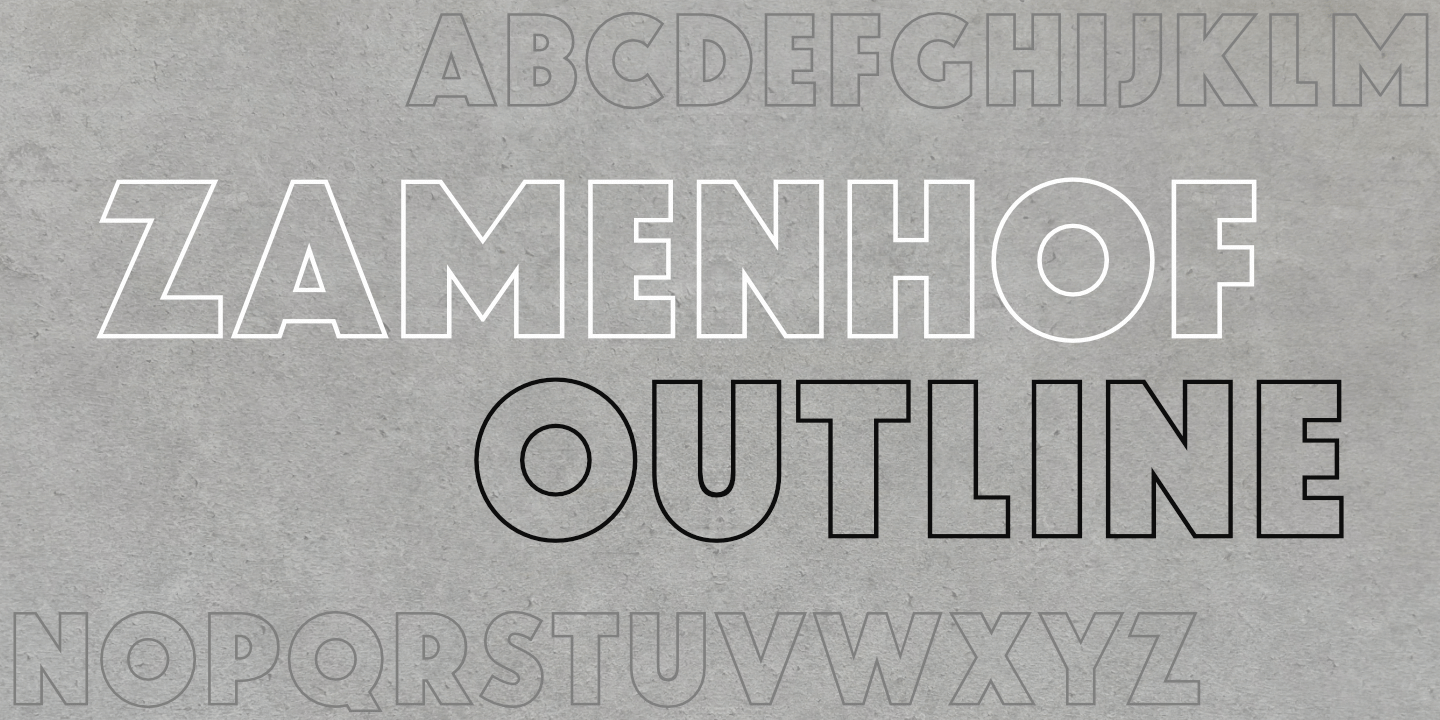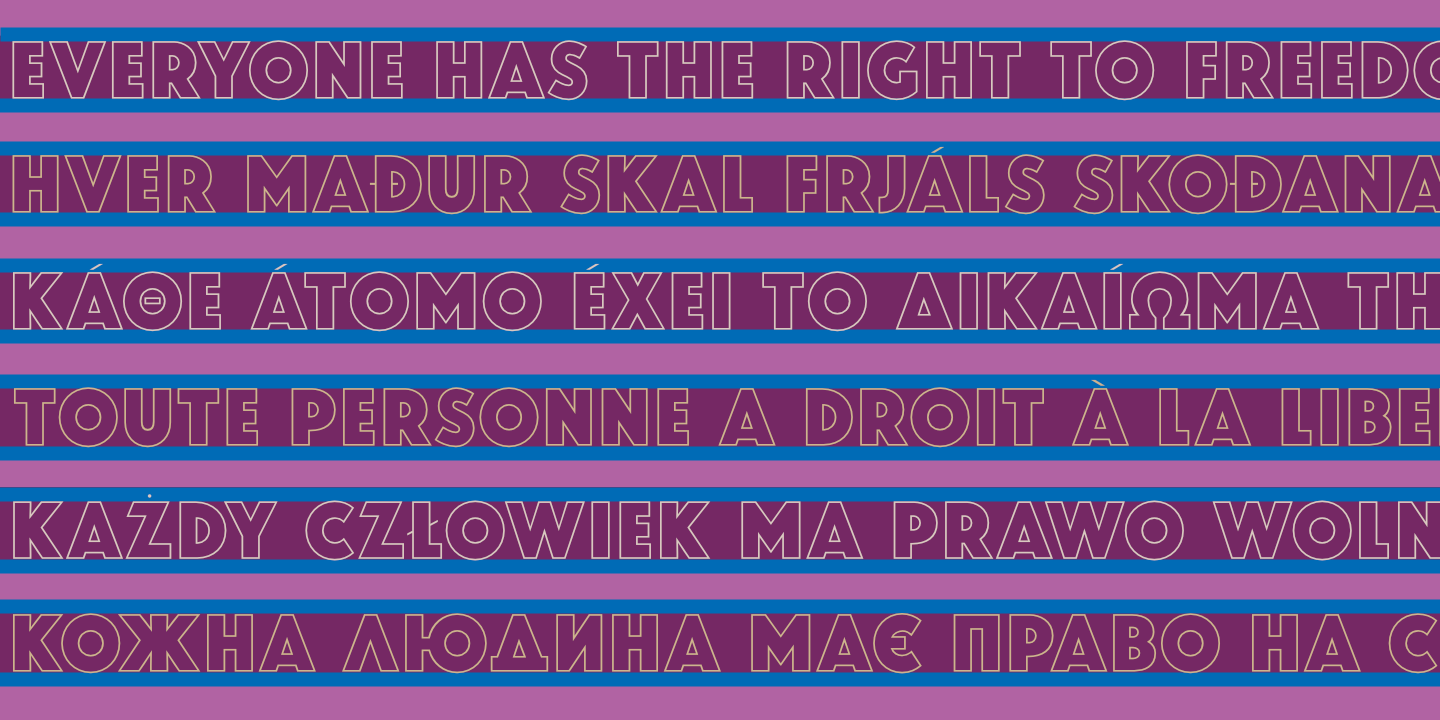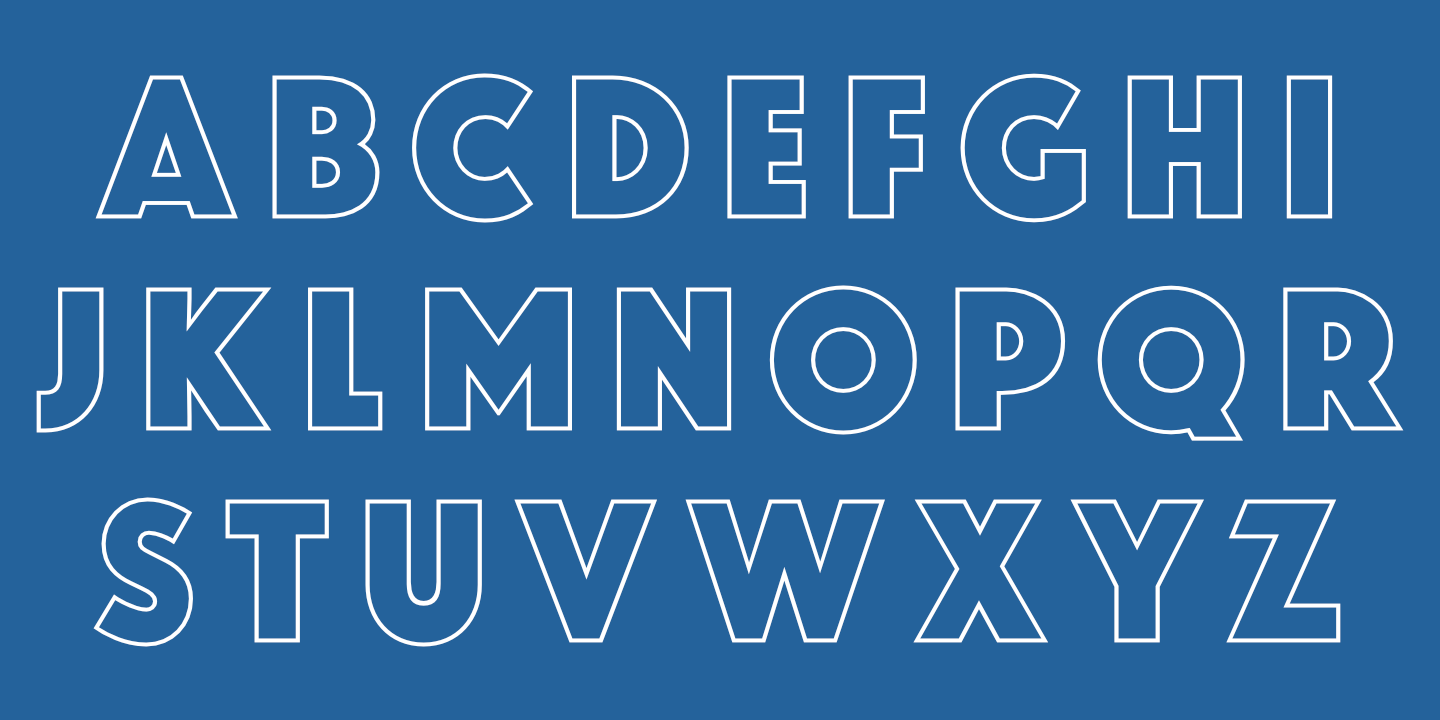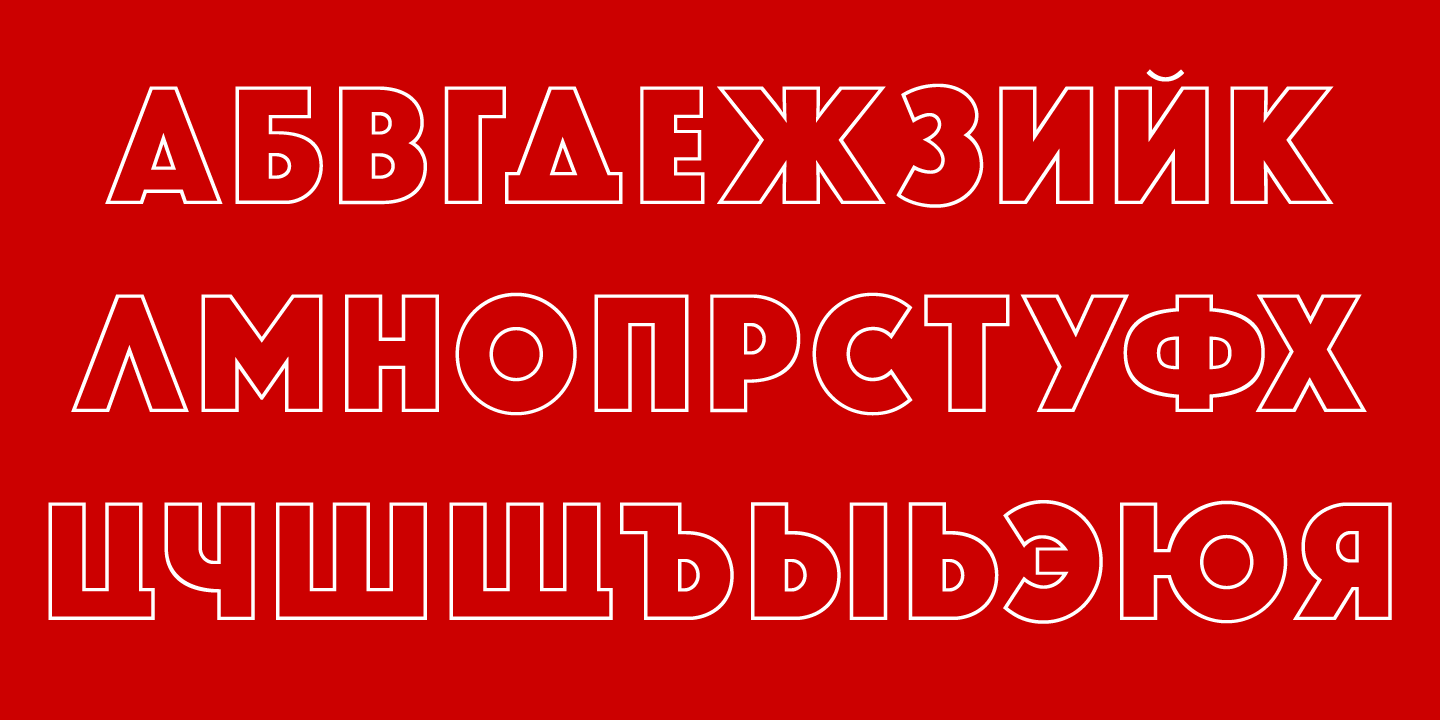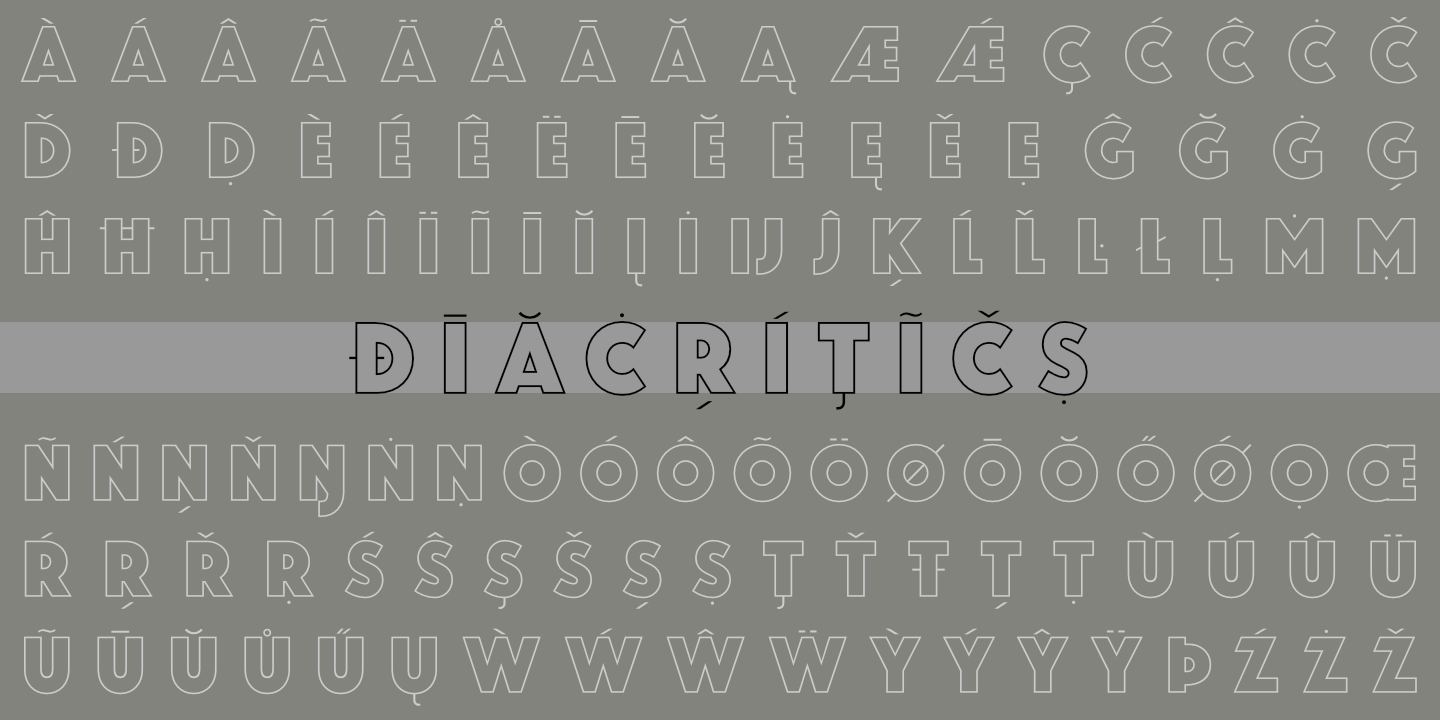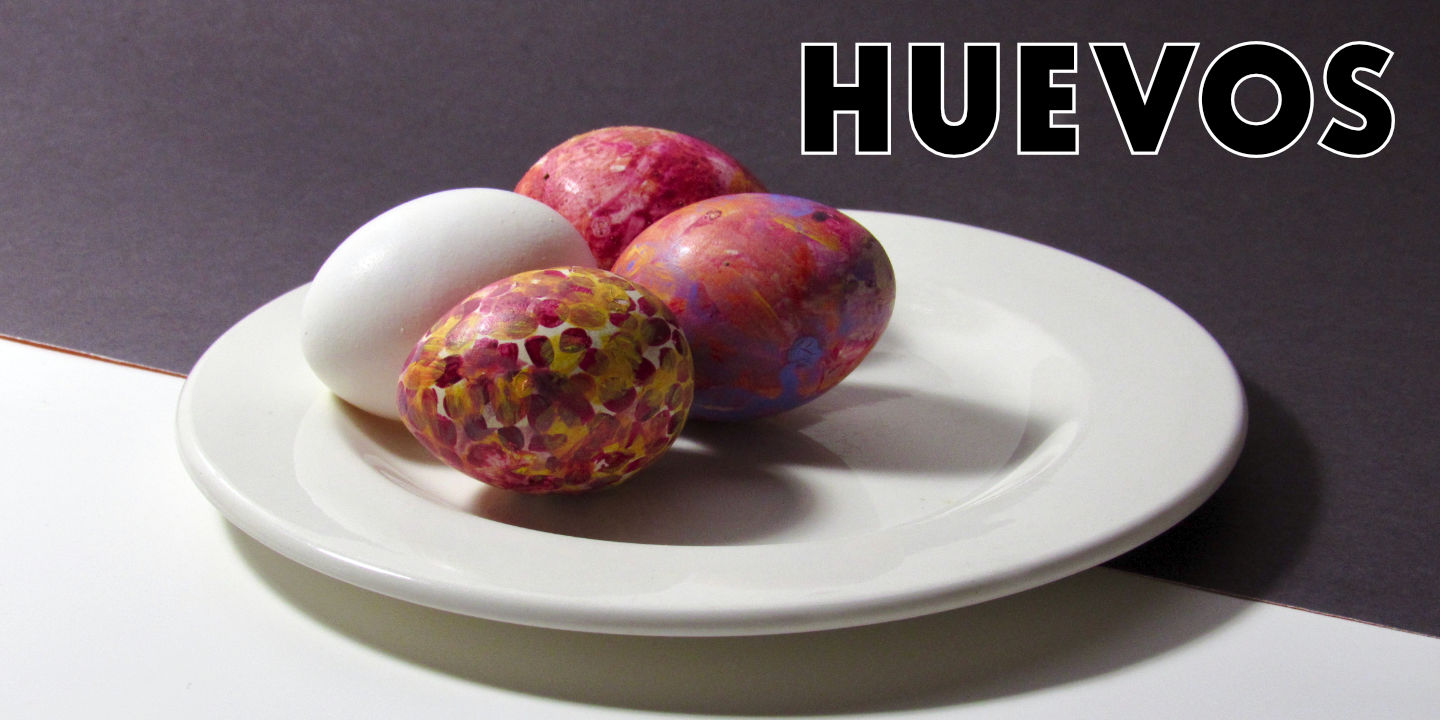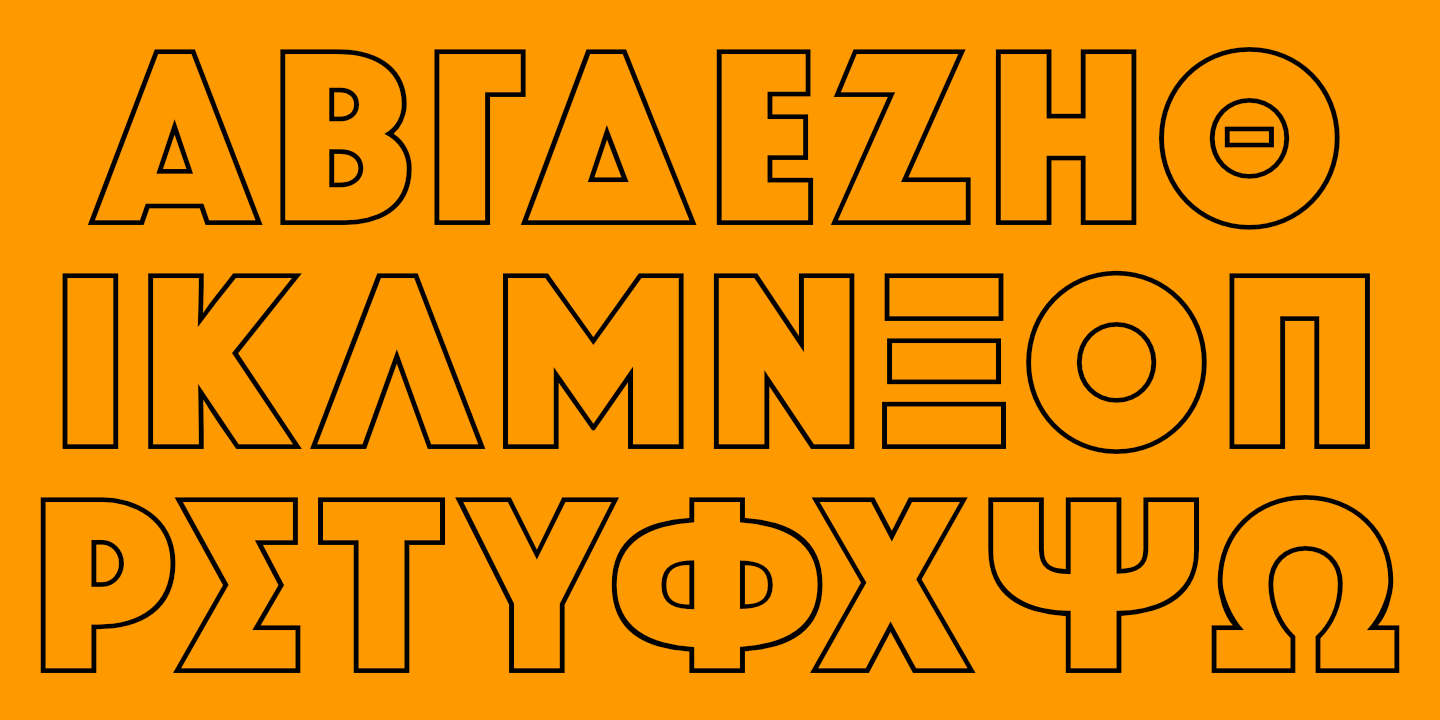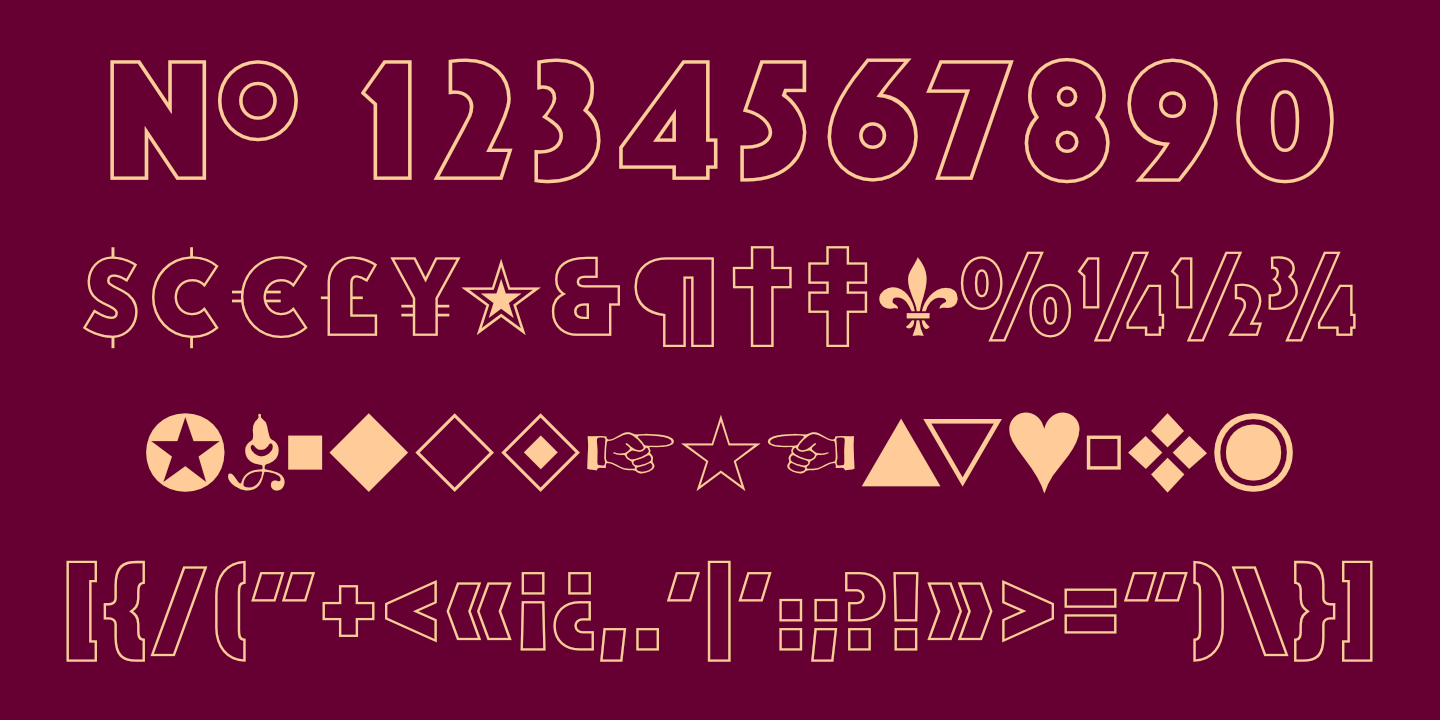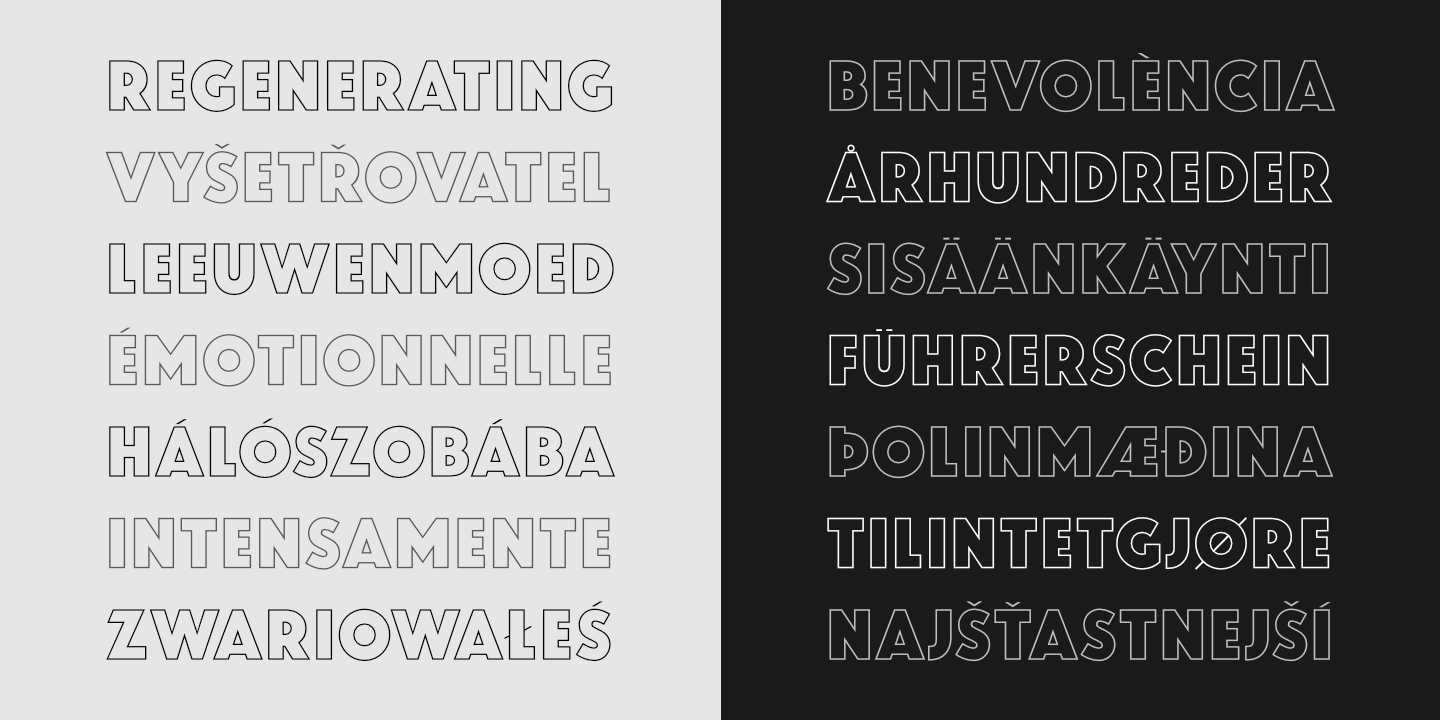
Zamenhof Outline supports most European languages. See Glyphs for details.
Zamenhof Outline supports most languages that use the Cyrillic alphabet. See Glyphs for details.
Zamenhof Outline supports modern (monotonic) Greek. See Glyphs for details.
Zamenhof Outline: Numerals, basic punctuation, currency symbols, and a sampling of ornaments.
Zamenhof Outline supports most languages that use the Latin or Cyrillic alphabet, as well as modern Greek.
Examples (above and below) of layering various styles of Zamenhof; the possibilities are endless.